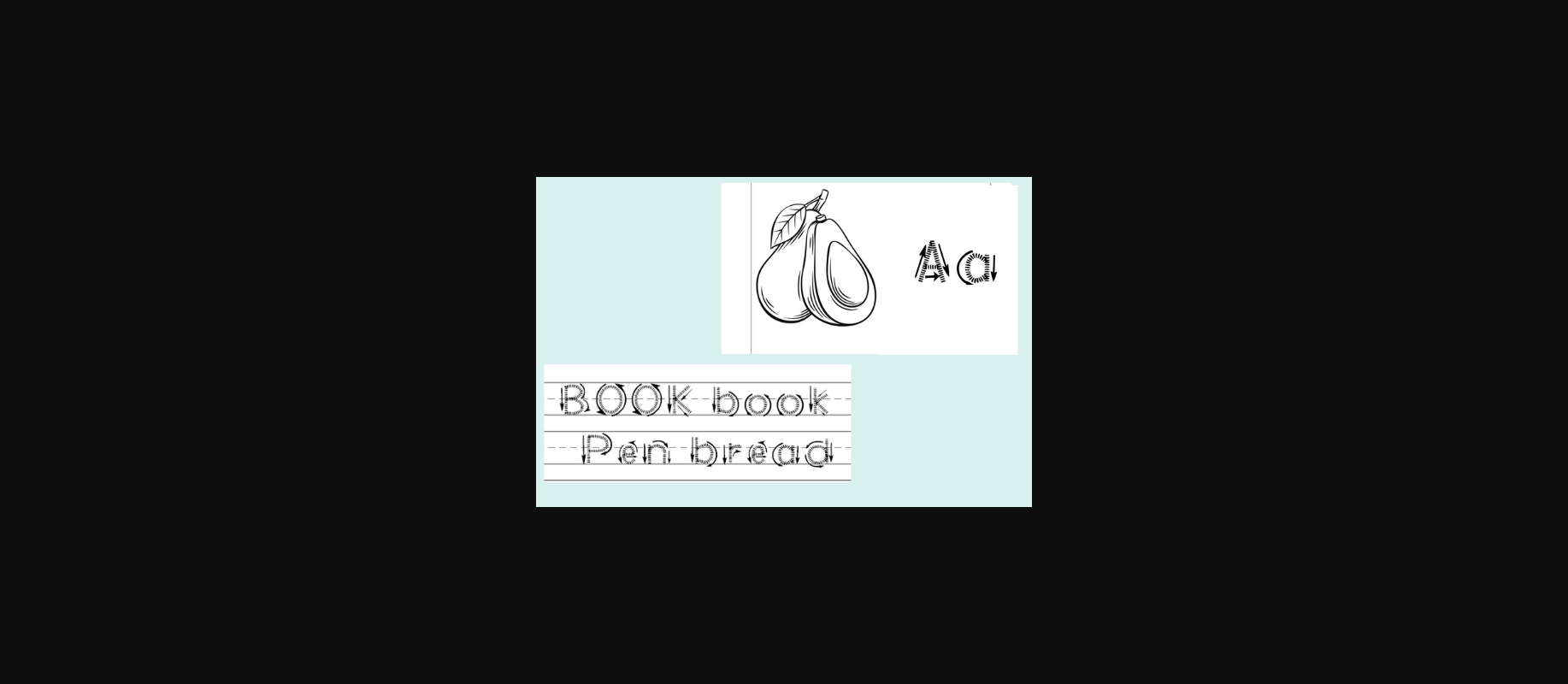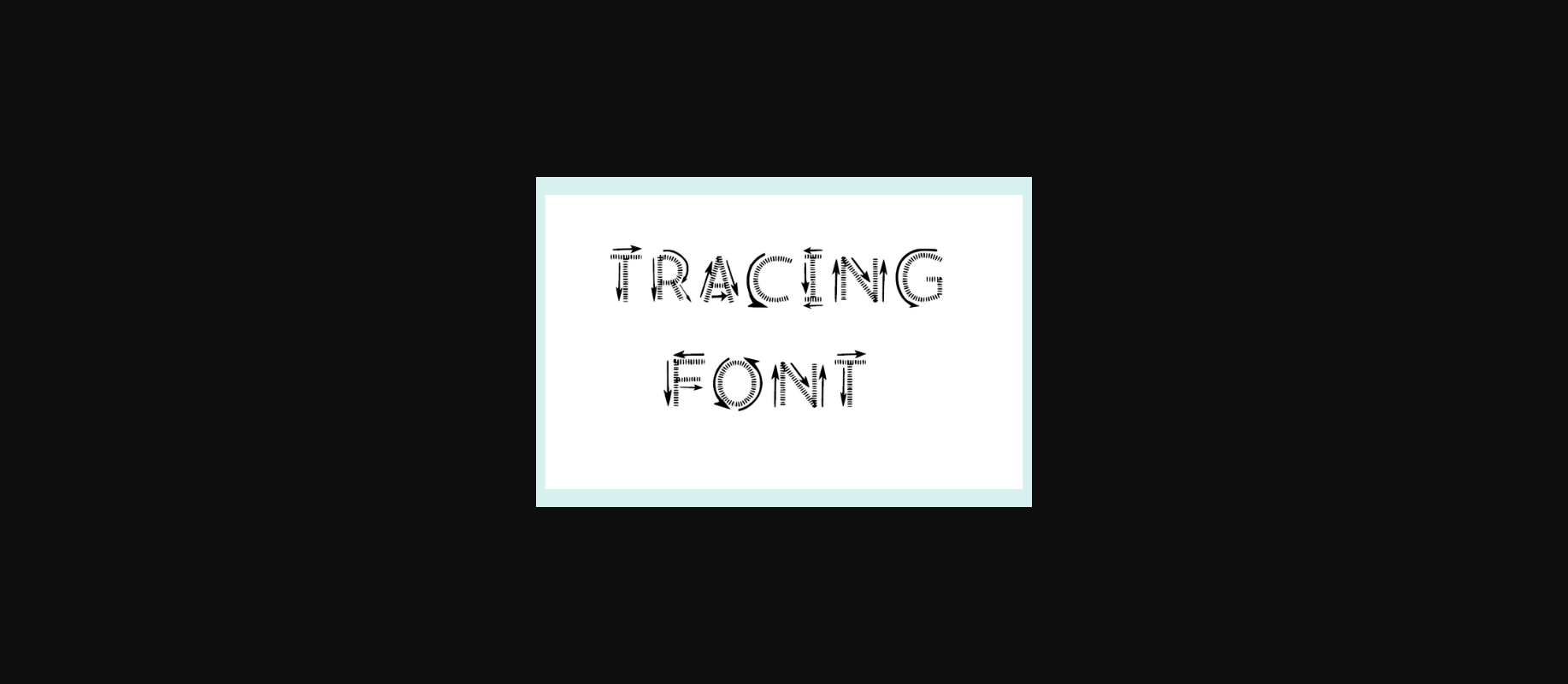
Tracing Font
About Tracing Font
Tracing is a charming decorative font. Fall in love with its authentic feel and use it to create gorgeous invitations, beautiful stationary art, eye-catching social media posts, and cute greeting cards.